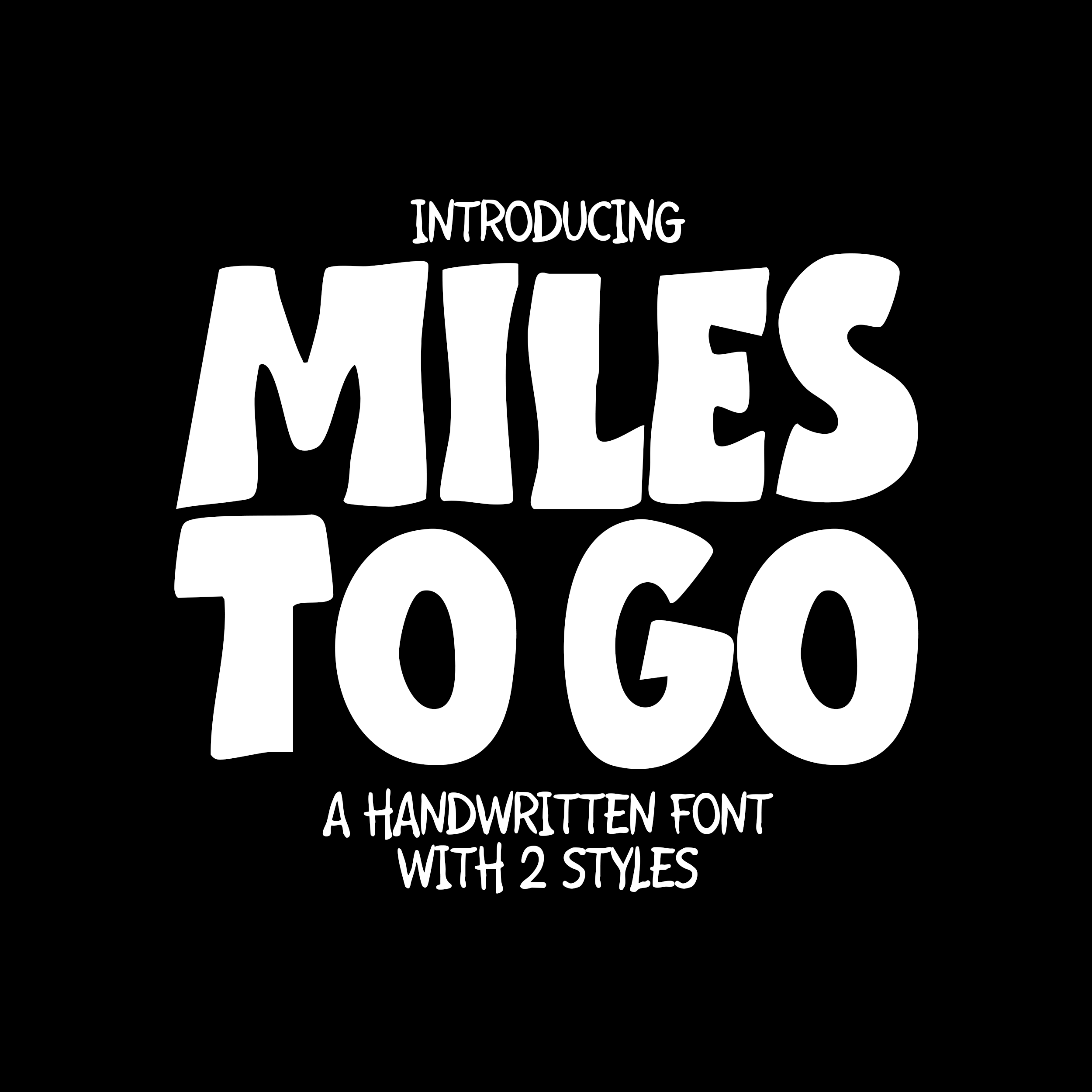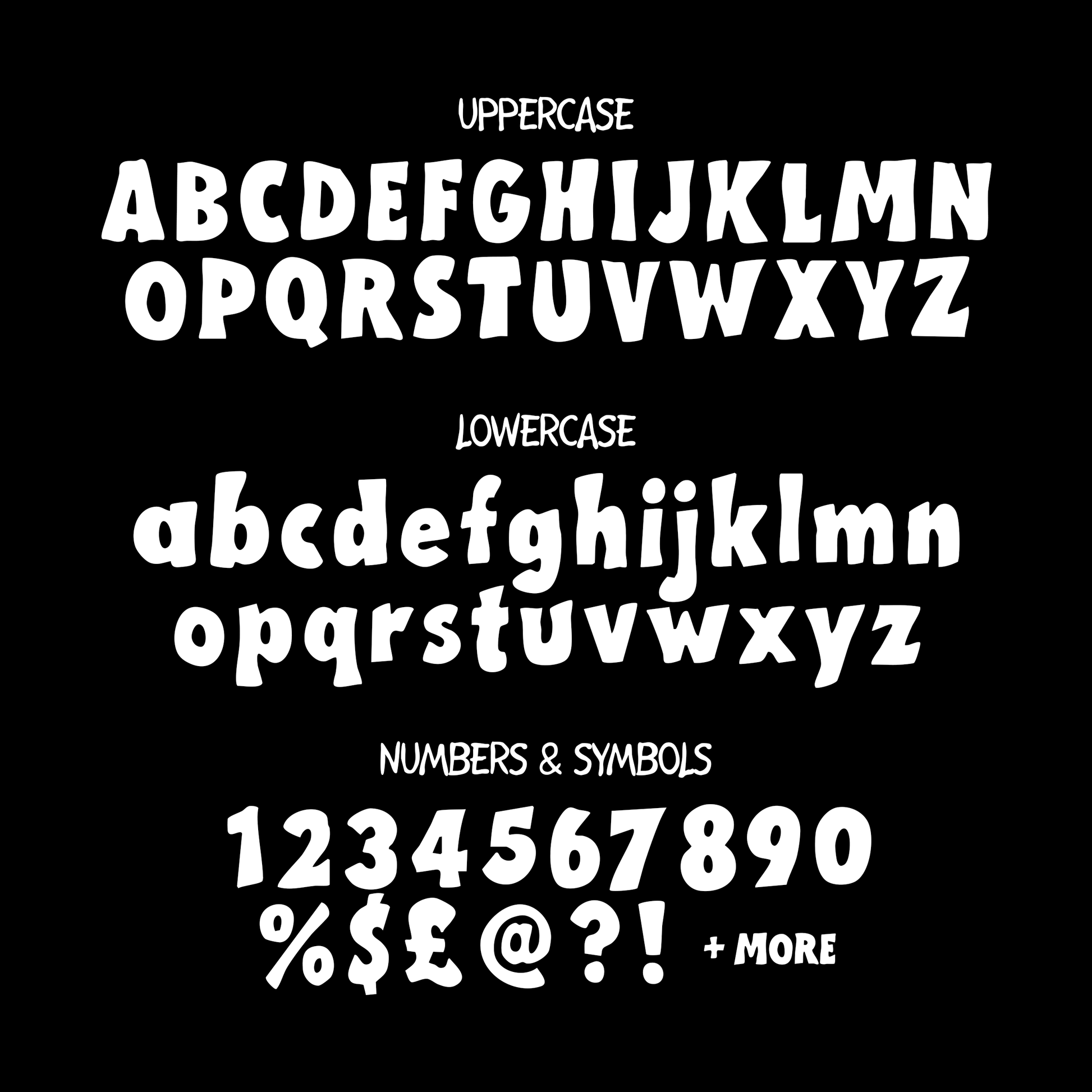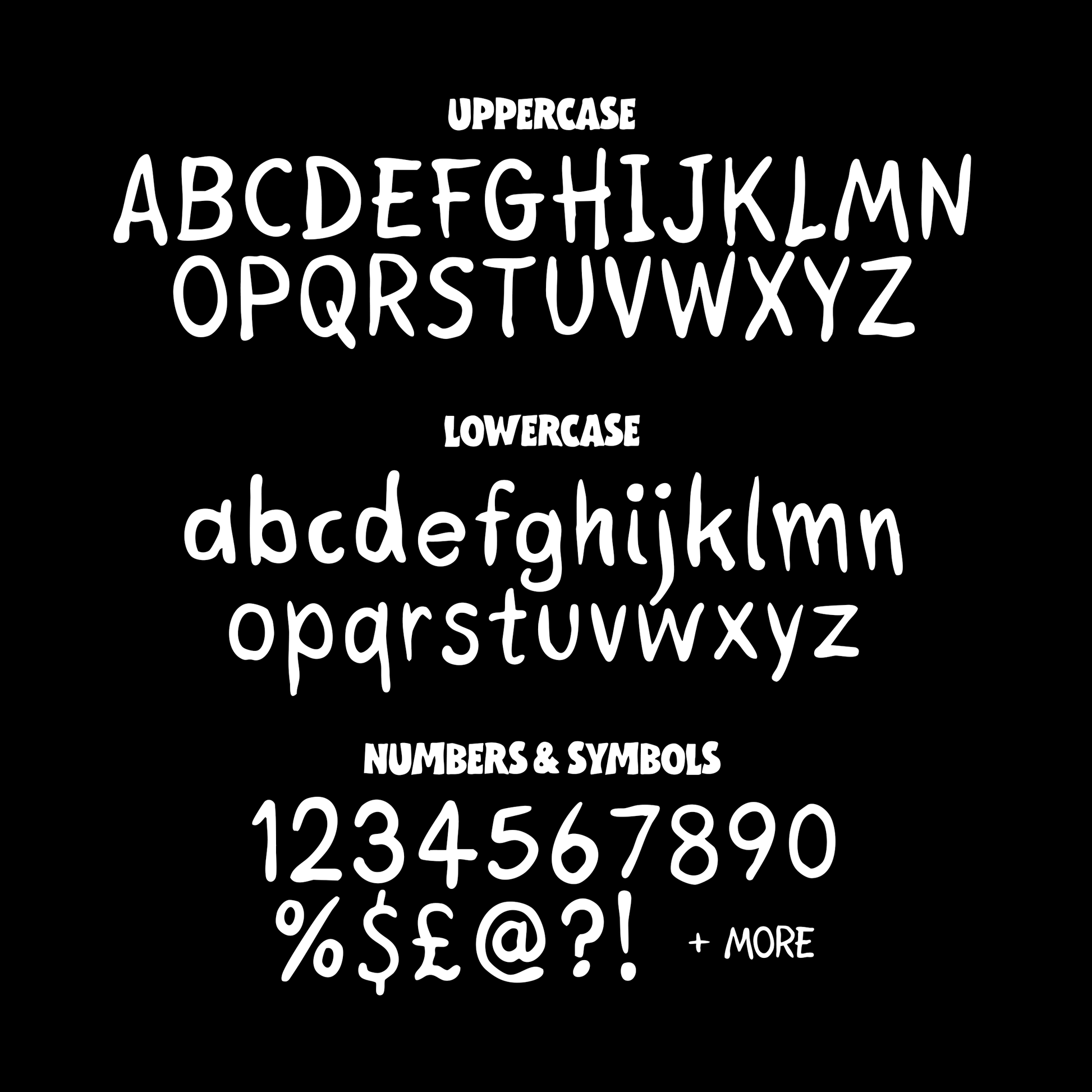
Introducing "Miles To Go": A Fun Expressive Handwritten Font Combo
This fun font combo has 2 different styles that pair together beautifully to bring a very “hand made” feel to your art and designs.
Ideal for:
Logos
Merchandise
Posters
Packaging
And much more!
Full uppercase and lowercase alphabets
Numerals and essential punctuation